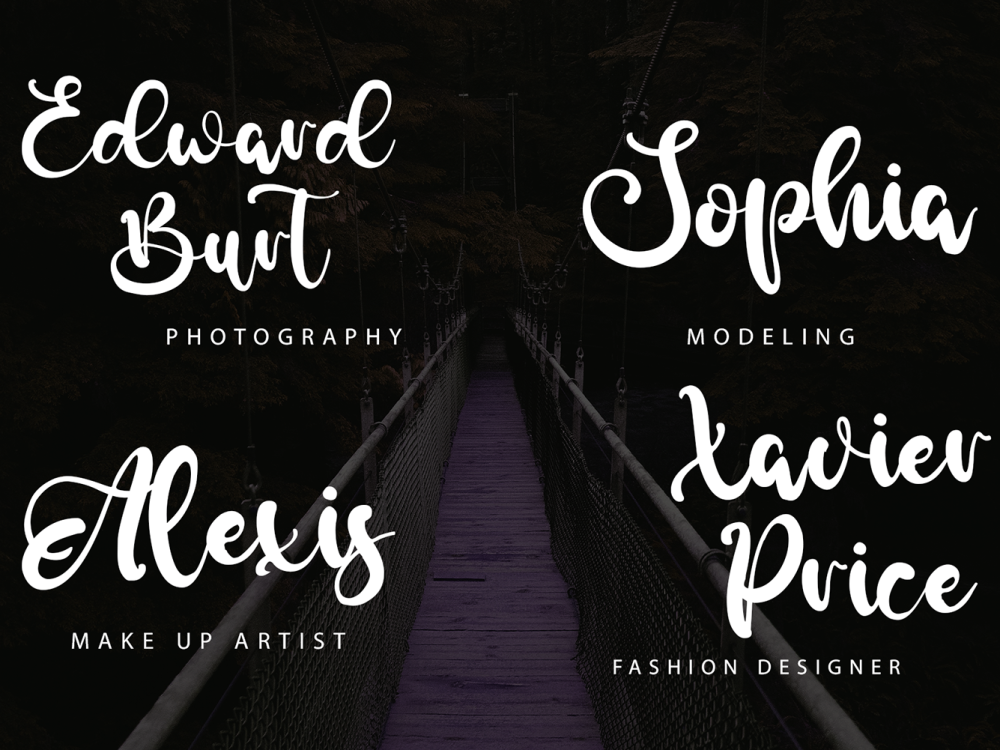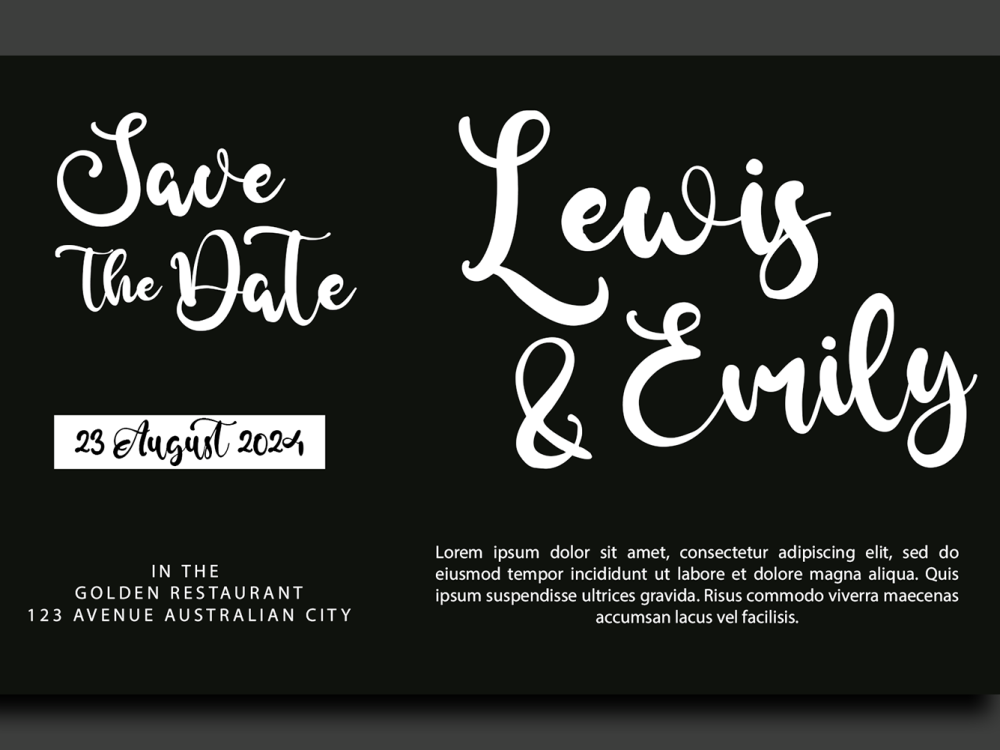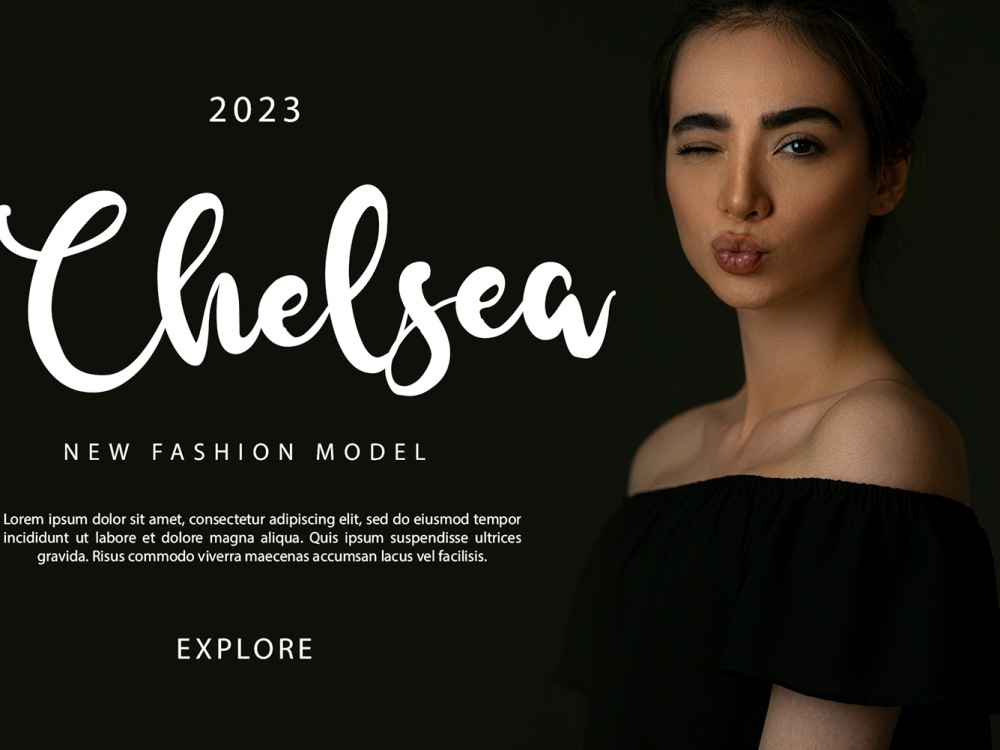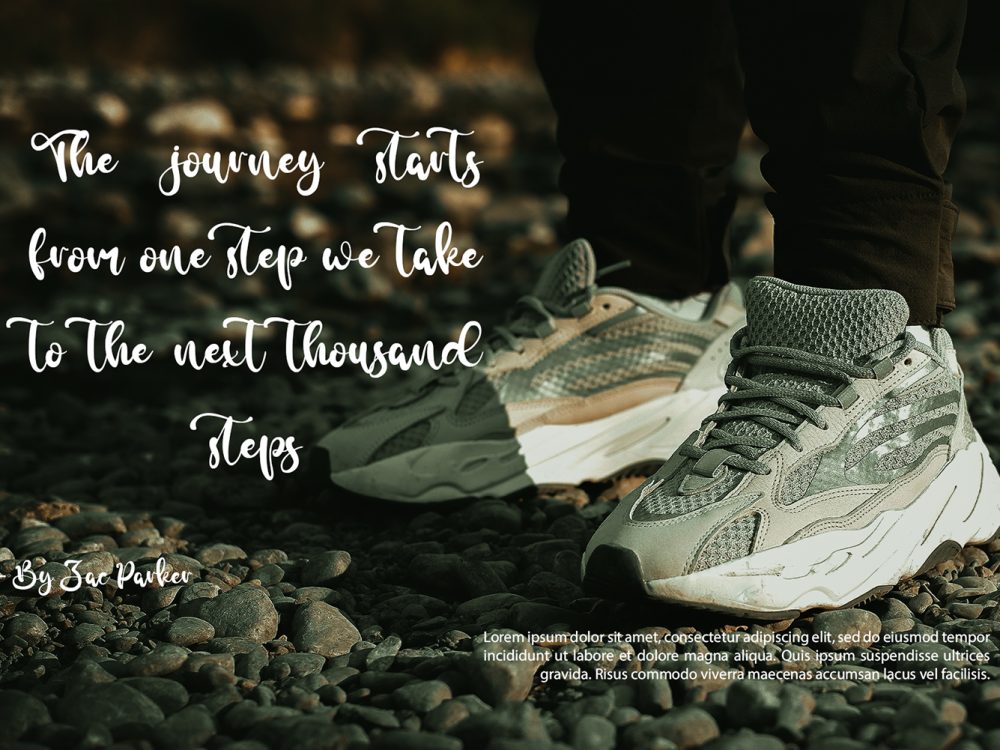
Burcaster Free Font
Burcaster Free Font presents a contemporary and whimsical handwritten script font, ideally suited for crafters and designers alike. Incorporate this font into your creative projects and unlock its limitless potential. If you like it don’t forget to check out the full version.